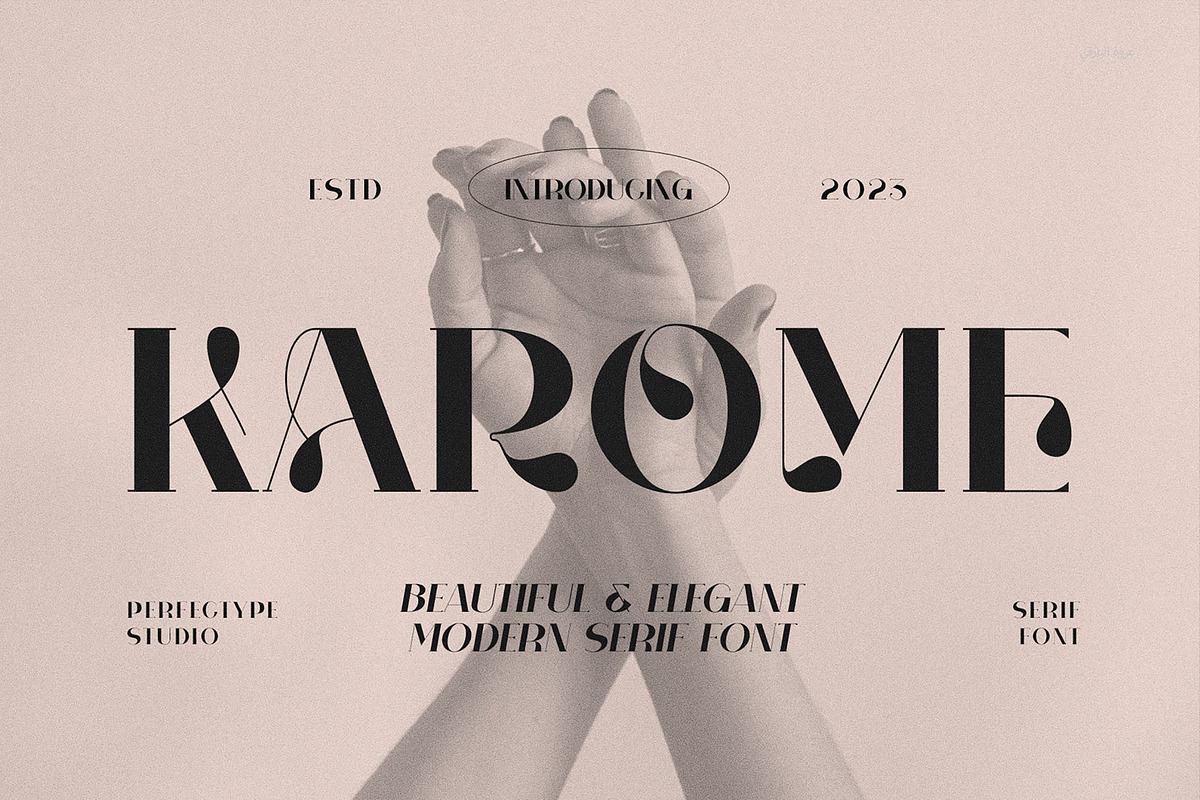
Karome Elegant & Unique Serif Font Free Download is a luxurious and contemporary typeface that combines classic serif charm with modern sophistication. Featuring high-contrast strokes, stylish curves, and artistic letterforms, Karome is perfect for fashion branding, editorial layouts, upscale packaging, wedding invitations, and statement logos.
Its refined yet expressive design makes Karome ideal for creative projects that require elegance with a unique twist. Whether you’re crafting a headline or building a premium identity, this font brings flair and finesse to your typography.